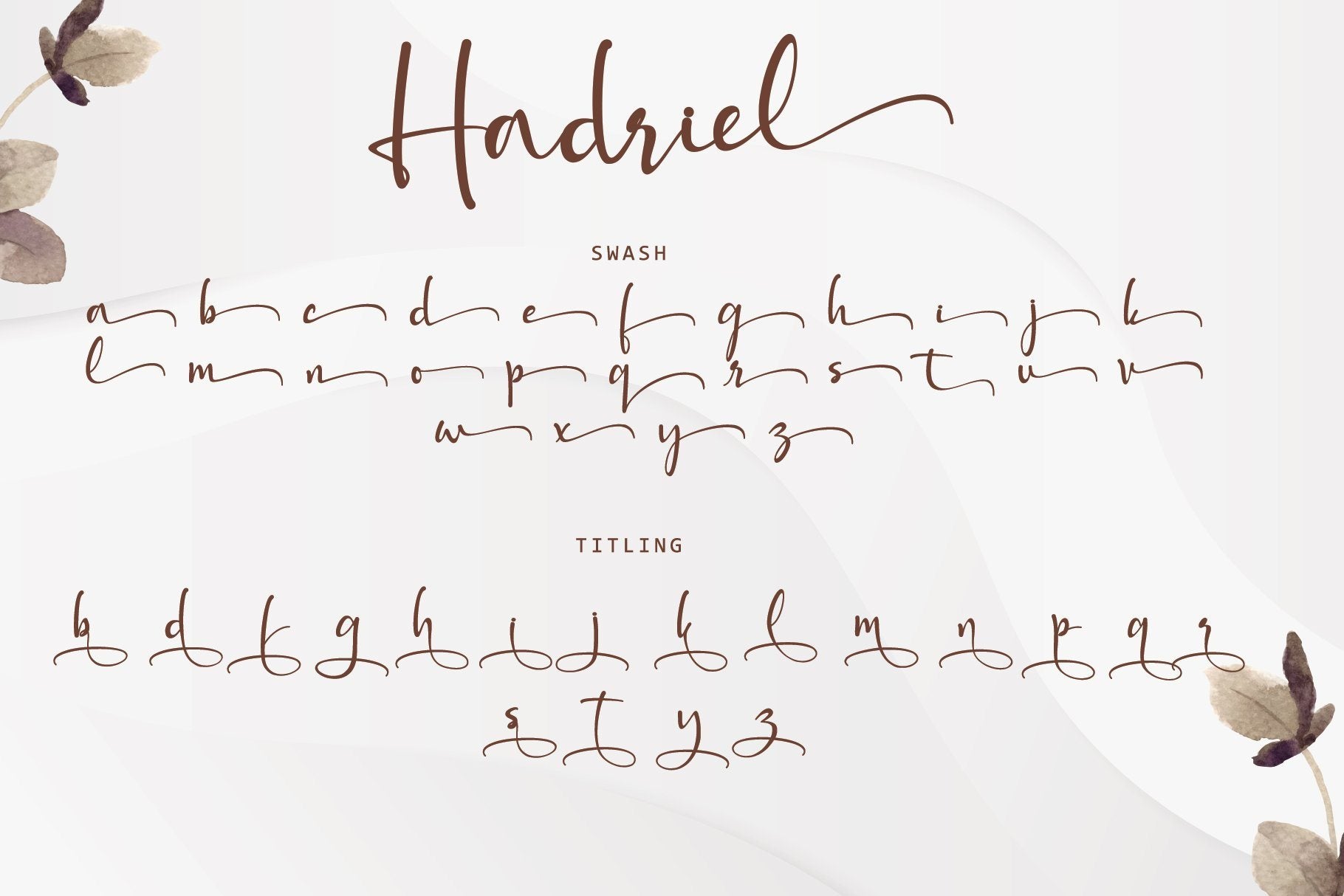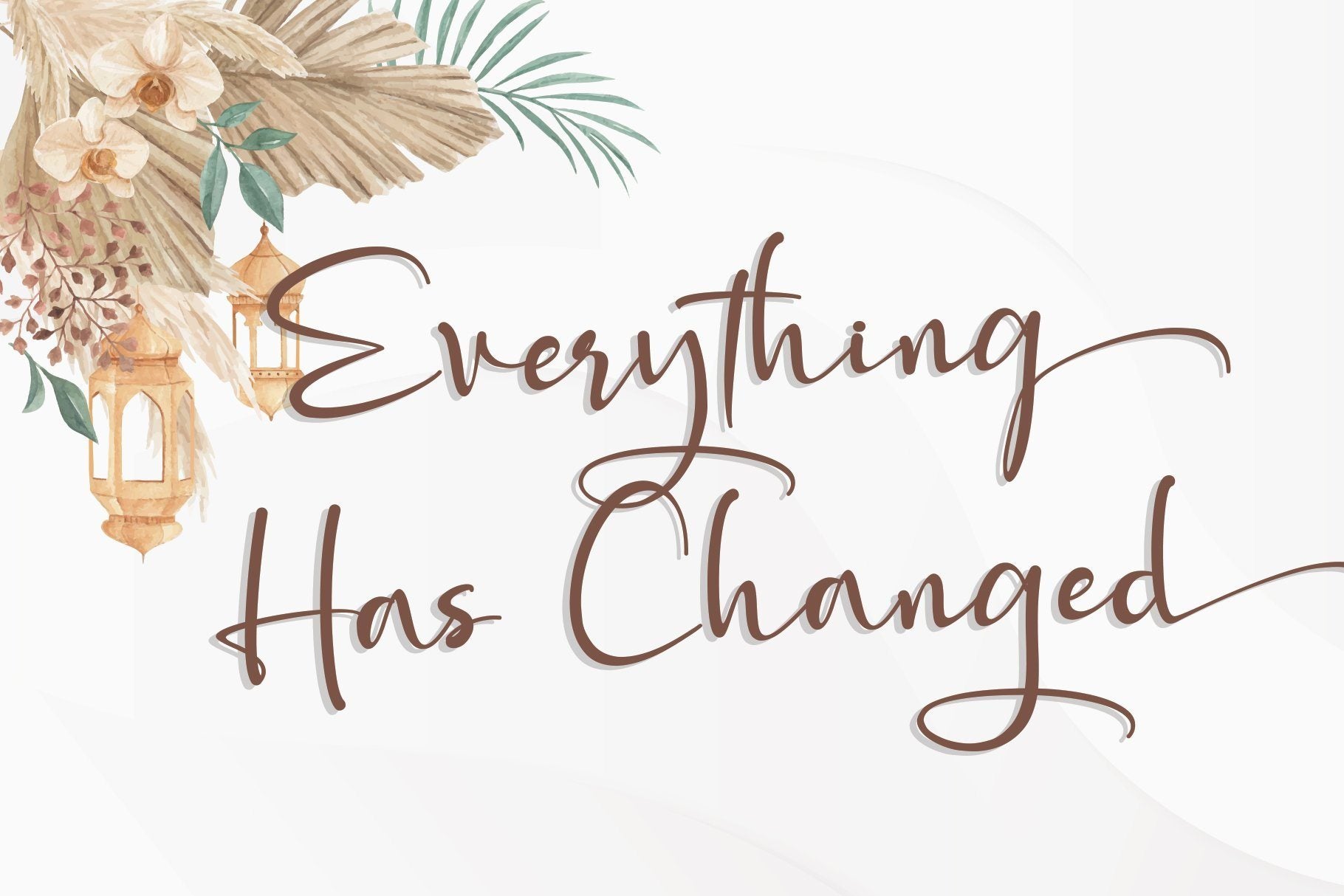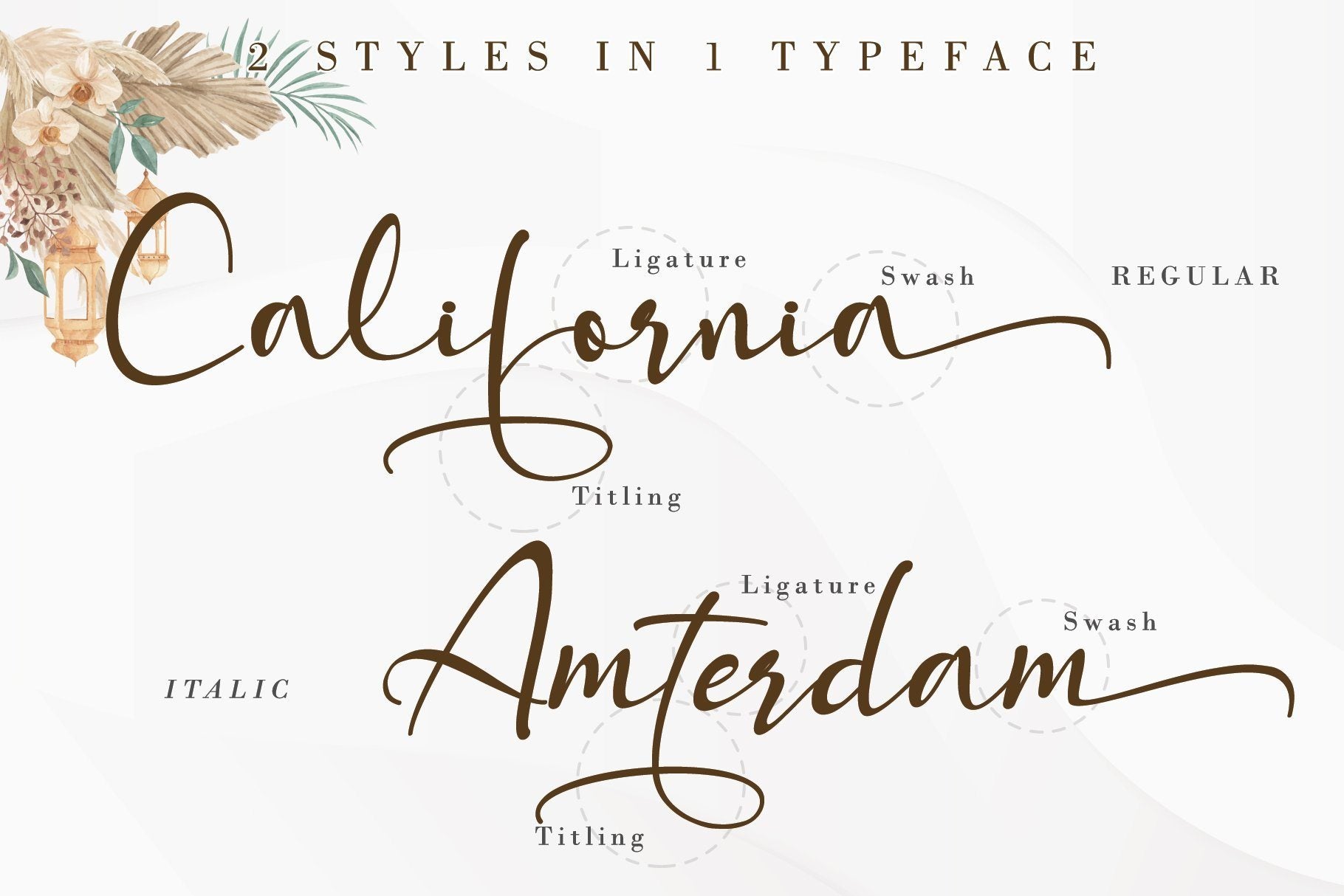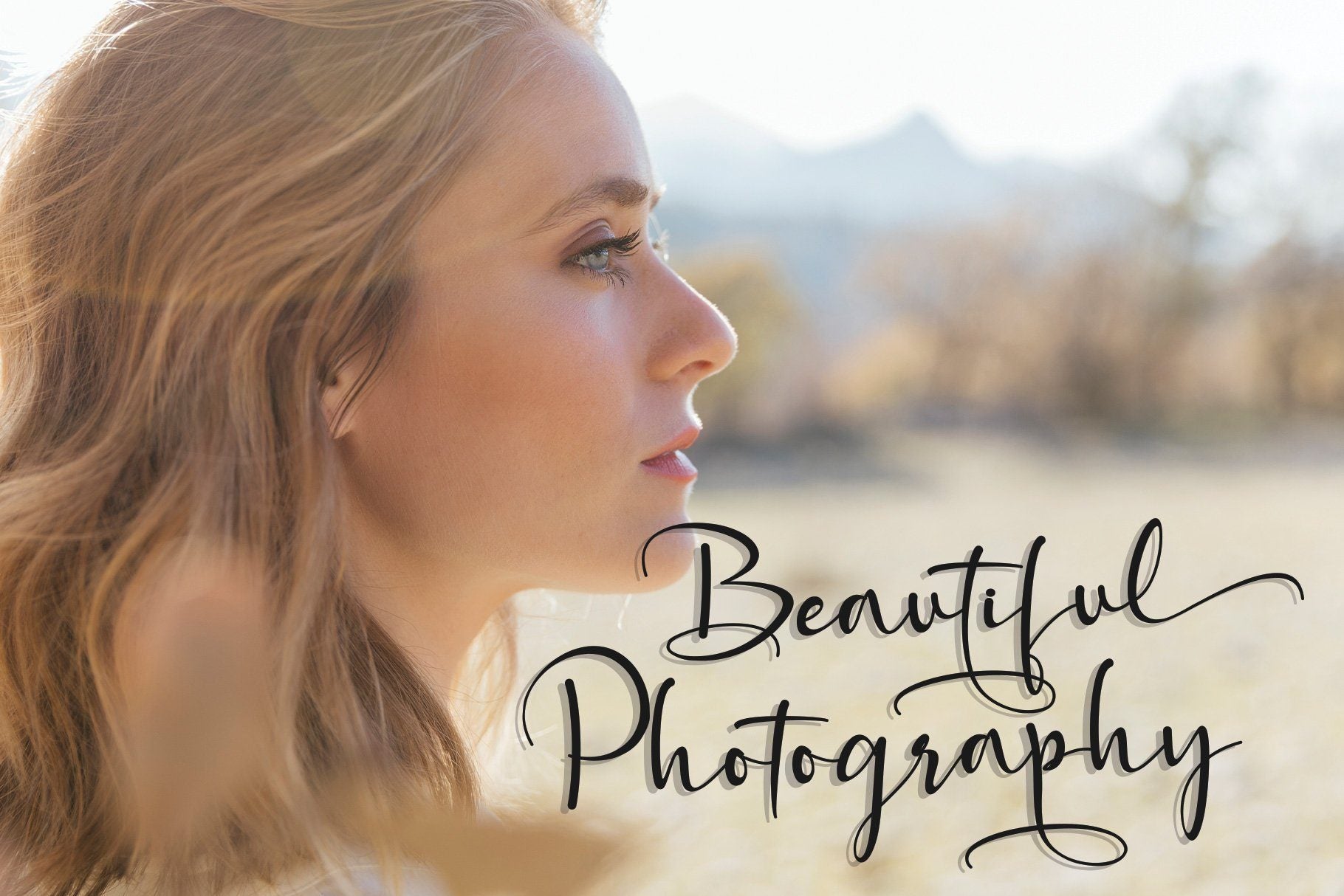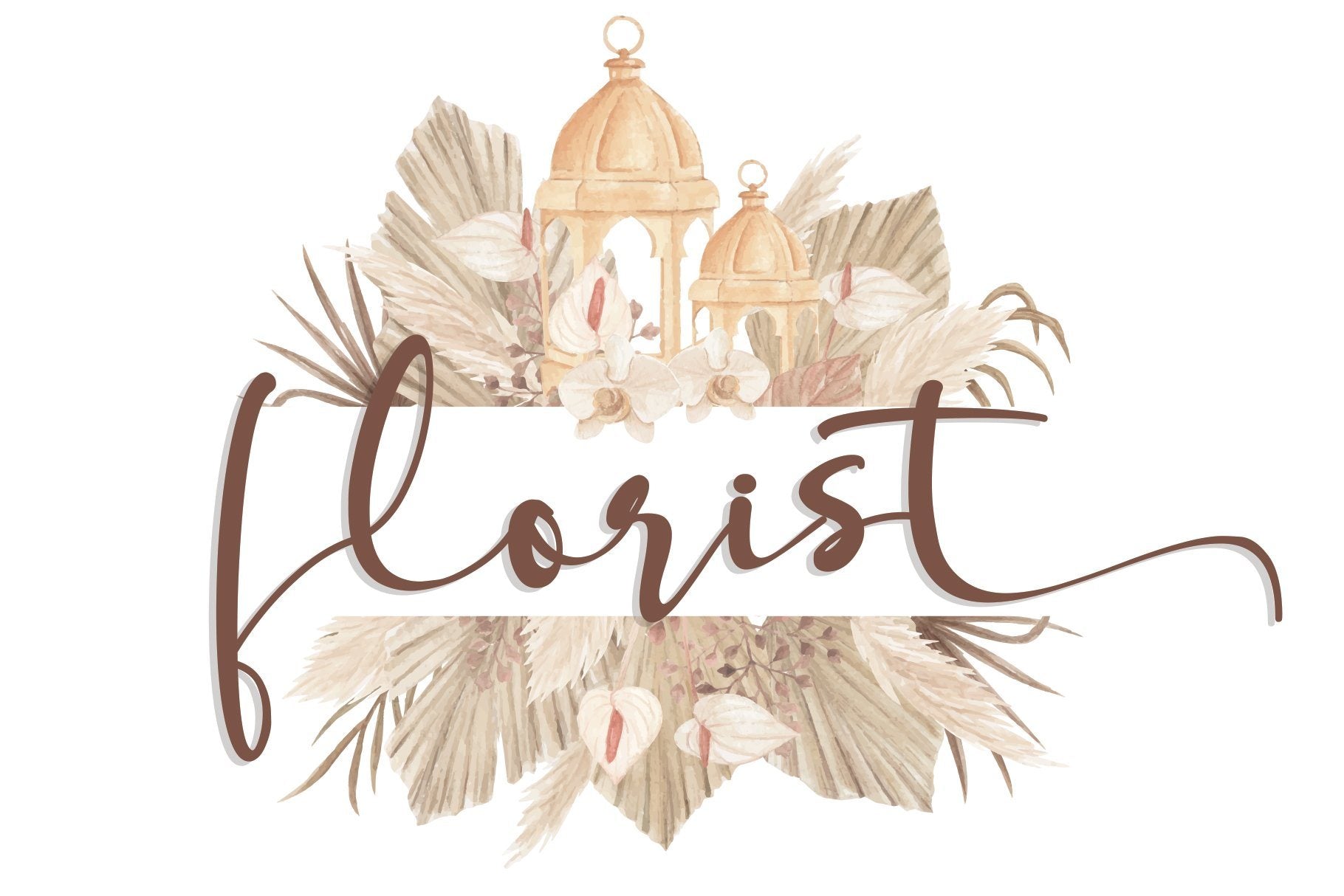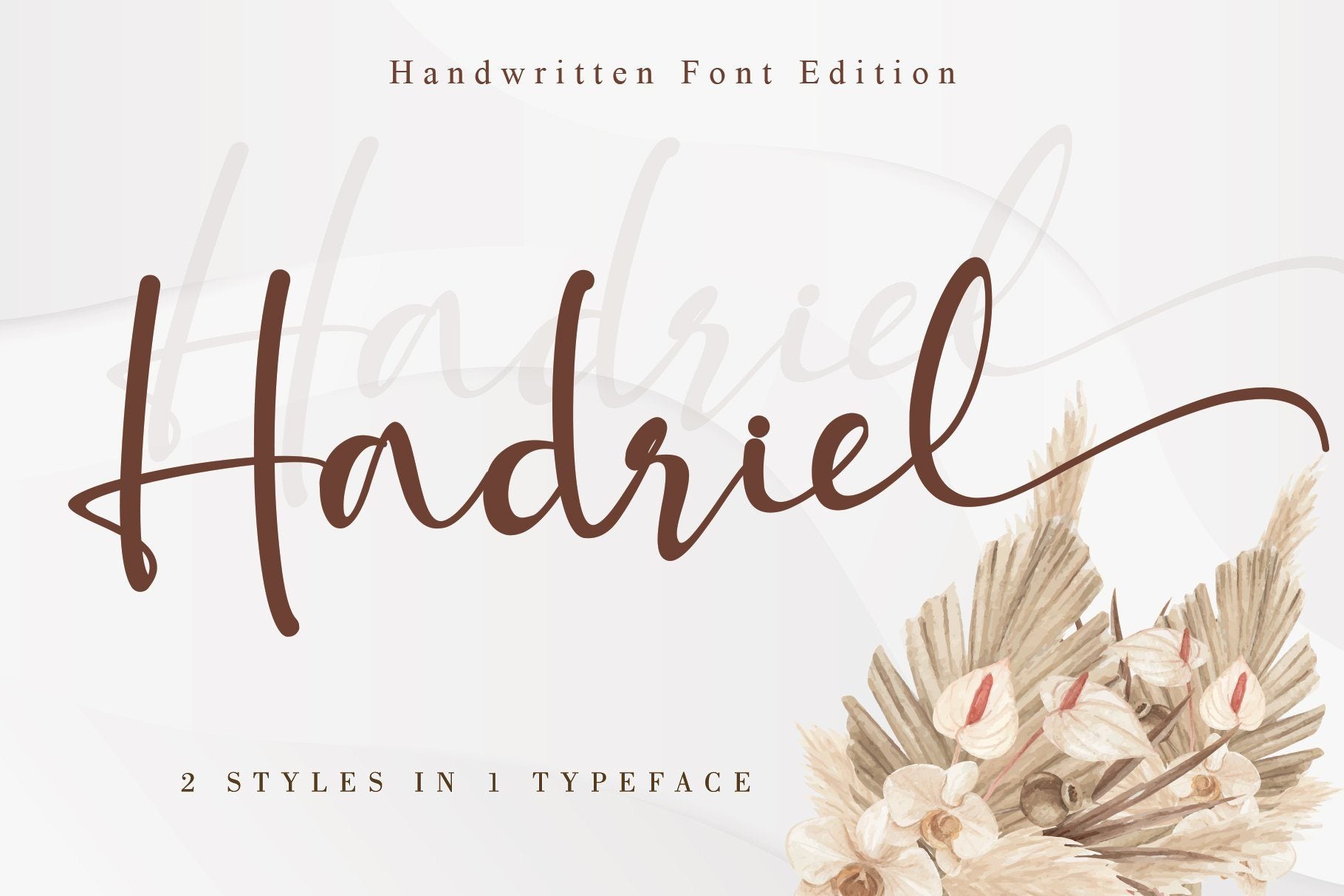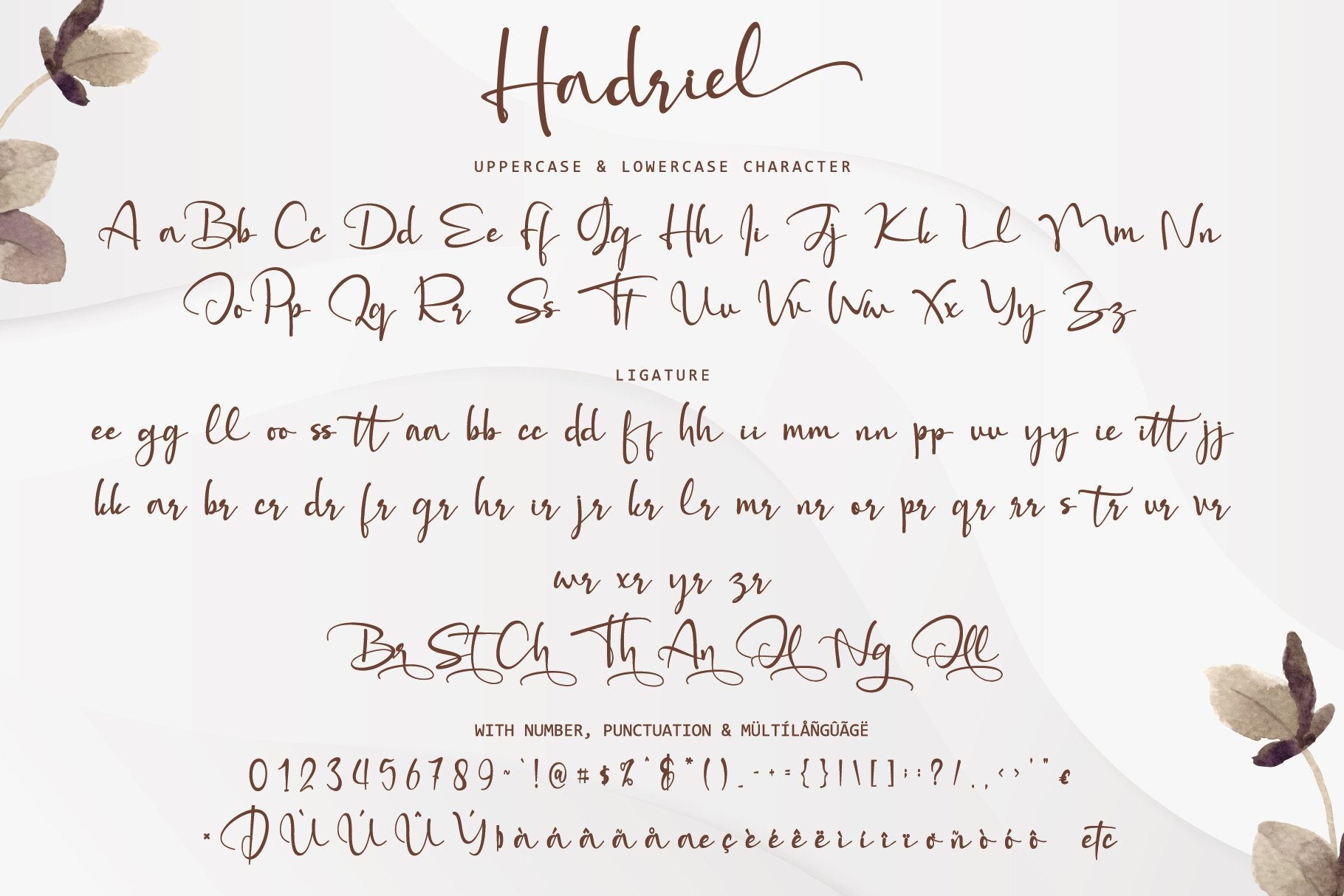
HADRIEL (LIMITED OFFER!!)
About HADRIEL (LIMITED OFFER!!)
Hadriel is a beautiful light handwritten font with a unique feel and looks stunning. This fantastic handwritten font is best suited for headlines of all sizes, as well as for blocks of text. Whether it’s for web, print, moving images, or anything else.  It will add a luxury spark to any design project!  This font is PUA encoded which means you can access all of the amazing glyphs and swashes with ease! It also features a wealth of special features including alternate glyphs and ligatures. What’s Included : Hadriel (TTF, OTF, WOFF) Hadriel Italic (TTF, OTF, WOFF) Works both on Mac & PC Simple installations Many features: Swash, Titling, and Ligature Accessible in the Adobe Illustrator, Adobe Photoshop, Adobe InDesign, CorelDraw, even work on Microsoft Word. Support multilingual; ä ö Ă¼ Ă„ Ă– Ăœ ĂŸ ¿ ¡ To access the alternate glyphs, you need a program that supports OpenType features such as Adobe Illustrator CS, Adobe Photoshop CC, Adobe Indesign, and CorelDraw. More information about how to access alternate glyphs, check out this link  ( http://goo.gl/ZT7PqK ) This font is PUA encoded which means you can access all of the playful glyphs and swashes with ease! It also features a wealth of special features including alternate glyphs and ligatures. To stay up to date for my latest job, follow me and let’s be friends because there will be many promos. Our other products: BESTSELLER WELLDONE MILEADILA BEAUTIFUL KISSES ANGELIN GAMOS HERTINA JENNIE ANTIKA AURORA BLACK PINK SIGNATURE California Street BESTOWENS FAMILY